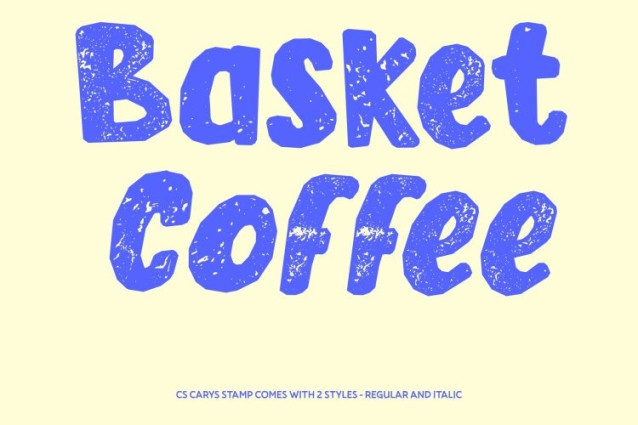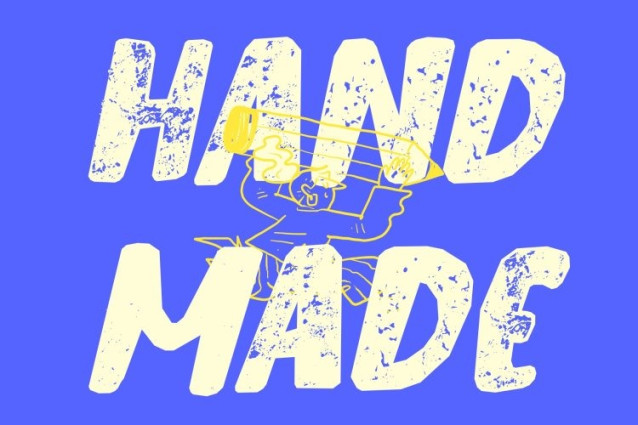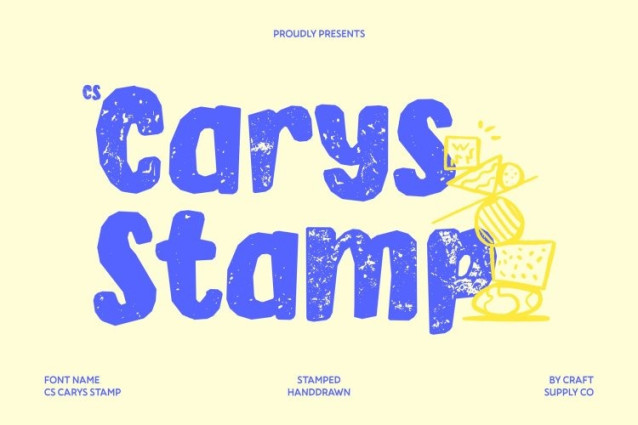
CS Carys Stamp Font
CS Carys Stamp Font – This is a playful display font designed to capture the spirit of fun, creativity, and youthful energy. Its bold strokes and rounded curves give each letter a lively and expressive personality, making the font feel cheerful and engaging. Enhanced with a stamp effect, the design gains a subtle vintage texture that adds character and handcrafted charm while maintaining its playful nature.
Rounded Forms for a Cheerful Impression
Every letter is crafted with smooth, rounded shapes that create a friendly and approachable look. These soft curves bring warmth and joy to the design, allowing the font to connect easily with viewers. The added stamp texture introduces a slightly worn, printed feel that gives the playful forms a touch of artistic and retro personality.
Bold Personality with Artistic Texture
The combination of strong shapes and textured stamp details creates a balanced visual style bold yet welcoming. The distressed ink-like finish adds depth and visual interest, making the font feel dynamic and expressive without losing clarity or readability.
Perfect for Youthful and Creative Designs
This font works beautifully across a variety of fun and creative projects, including playful branding, greeting cards, posters, packaging, children’s materials, and social media graphics. Its lively shapes and vintage stamp character transform simple text into a joyful and memorable visual statement, bringing warmth, energy, and personality to every design.